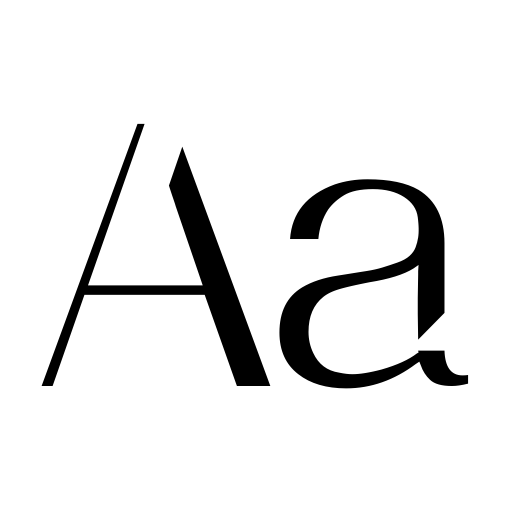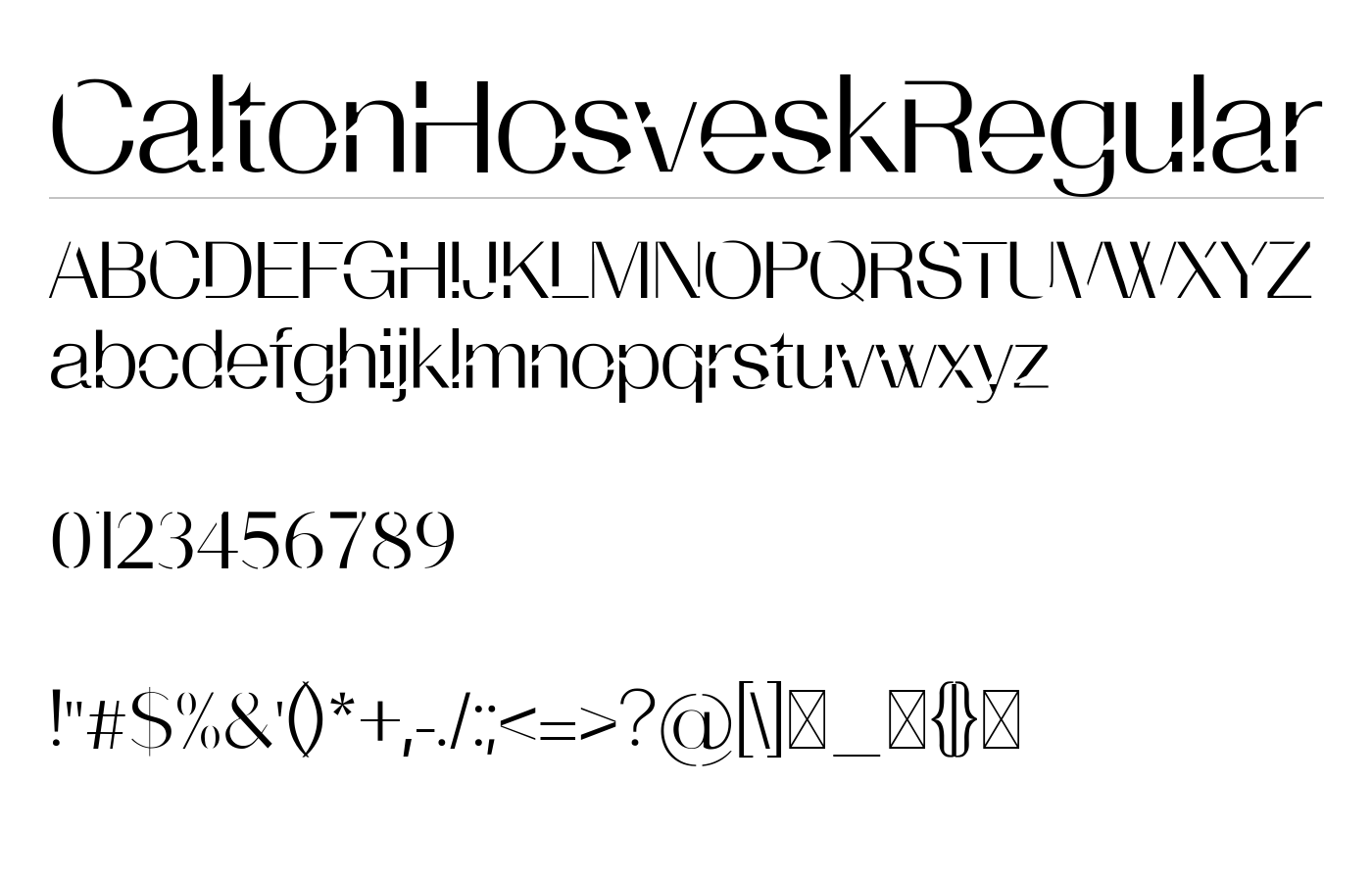
CaltonHosvesk is a modern serif font featuring a high contrast between thick and thin strokes, with thin, sharp serifs that convey elegance and sophistication. Its unique letterforms, such as the distinctively angled strokes and geometric curves, lend the font an artistic and avant-garde flair, making it ideal for high-fashion branding, editorial headlines, and luxury packaging. This font balances refined style with a contemporary edge, best suited for projects aiming to stand out with a polished yet creative look.
CaltonHosvesk Font